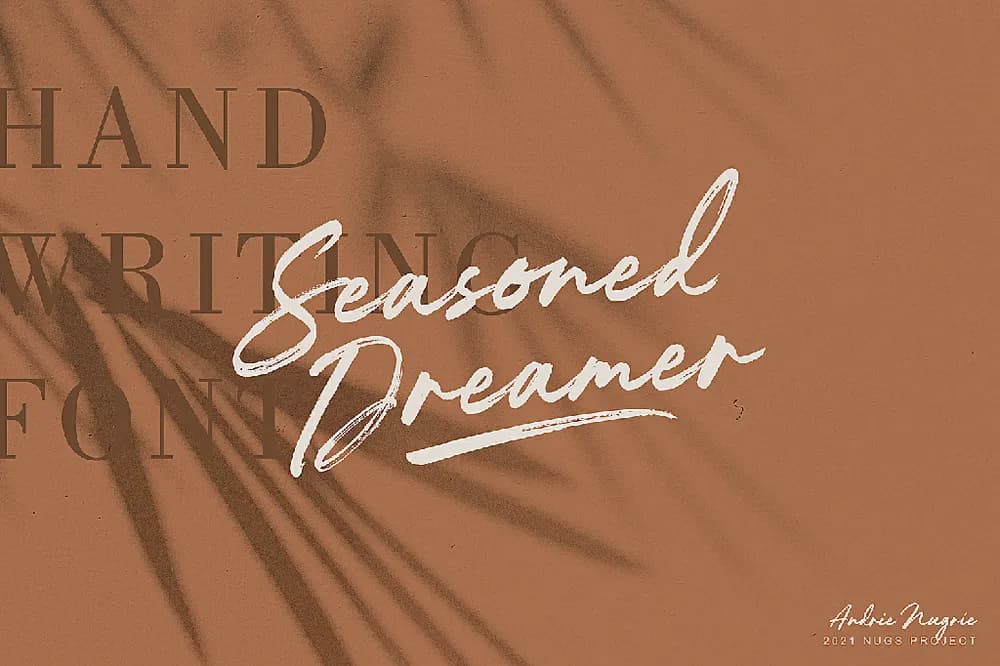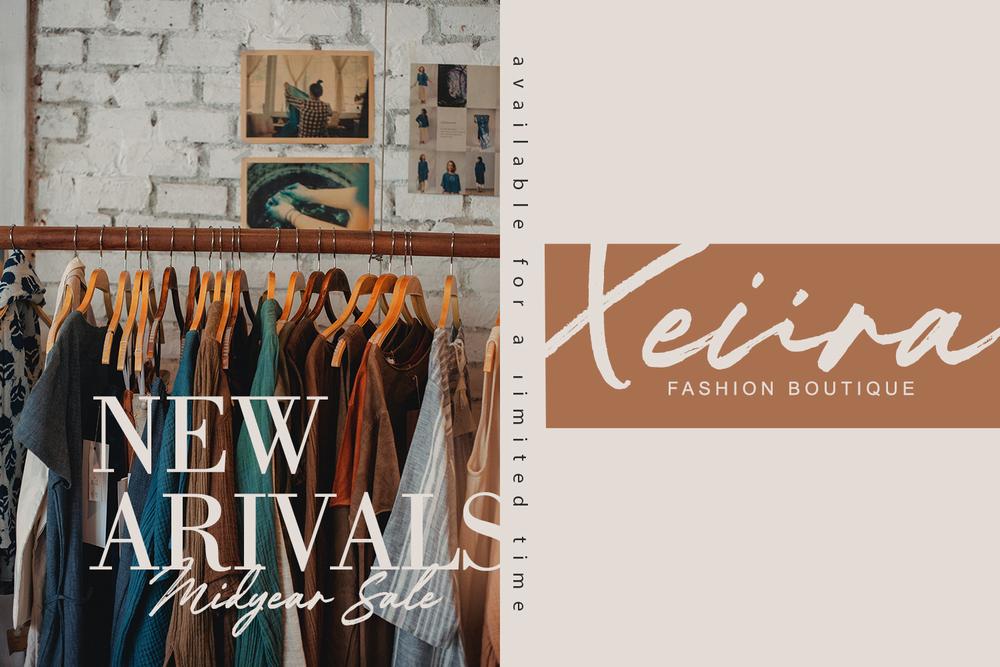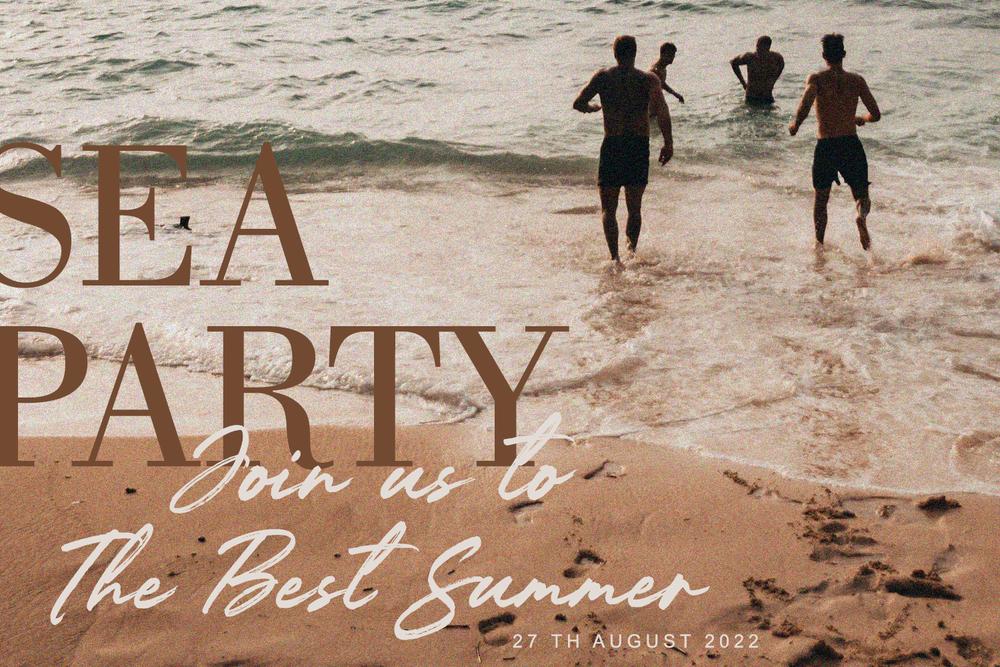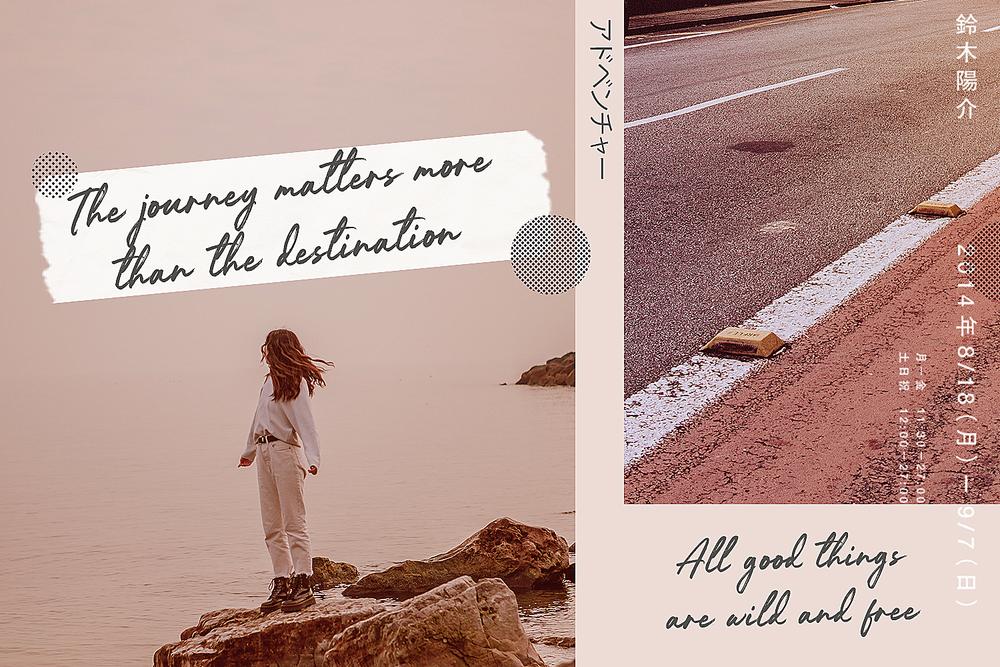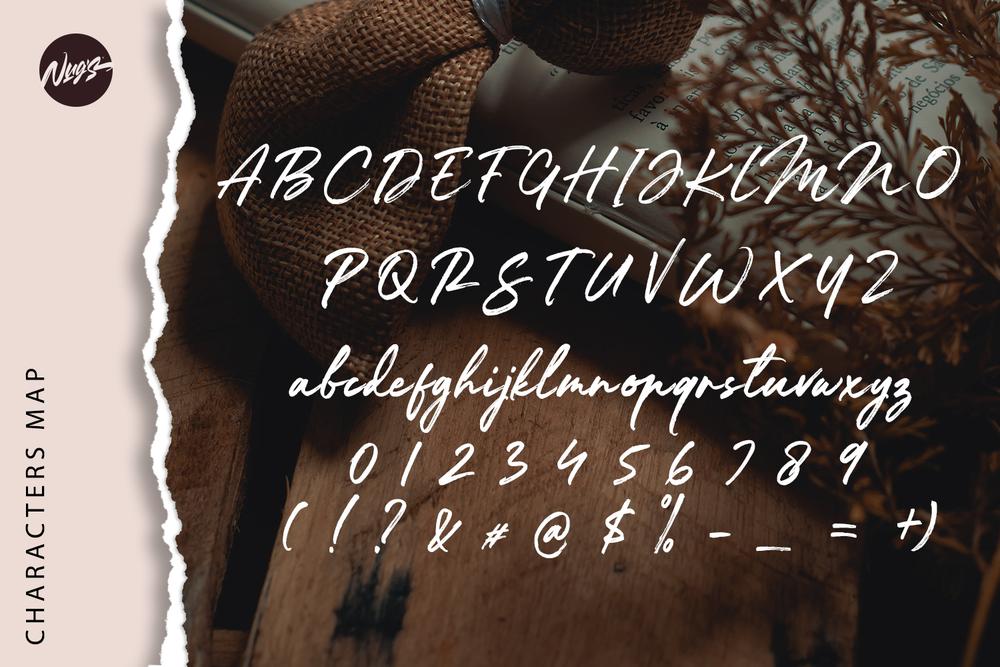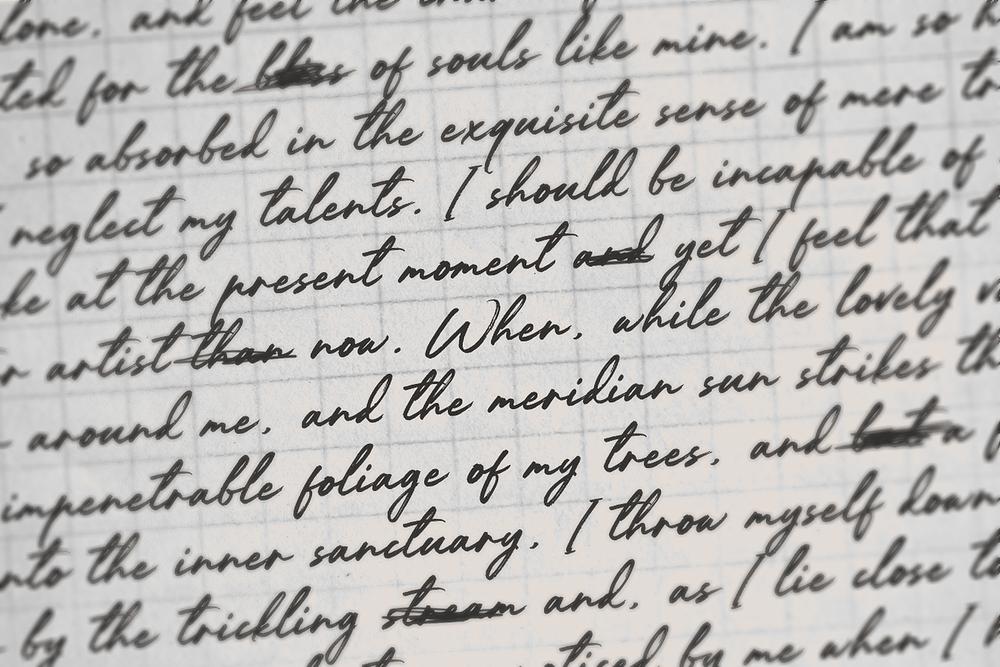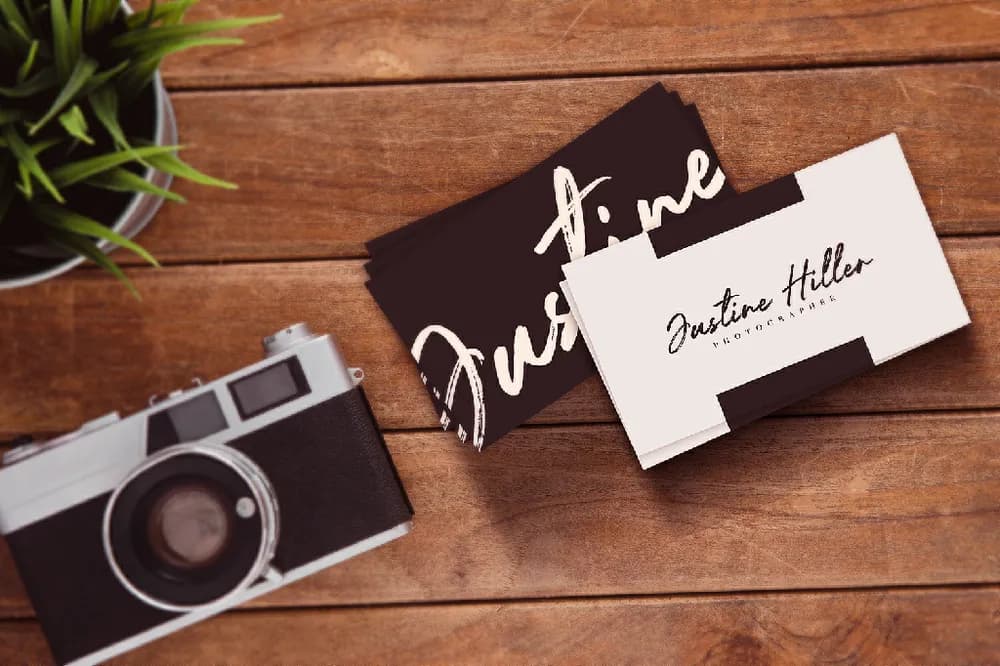
hank you for dropping by! It is my pleasure to introduce you to "Seasoned dreamer" - a casual but classy handwritten script that's perfect for adding that warm, organic, handmade touch to your designs.. Use this font for logos, social media, websites, blogs, instagram, social media, business cards, branding, and more! ☛ Stylish ligatures ☛ Uppercase & lowercase letters ☛ Numerals & punctuation ☛ Multilingual support 𝐅𝐨𝐫𝐦𝐚𝐭 : OTF, TTF, and WOFF.